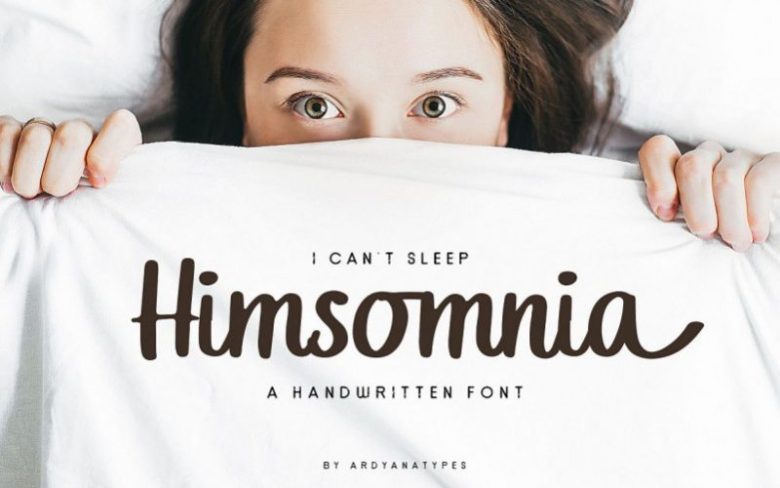
Himsomnia Handwritten Font
Introducing himsomnia is a simple and very casual font. Himsomnia also has many opentype features that you will like, these fonts are perfect for logos, quotes, clothing designs, wedding invitations, and more.
You can play with ligature, alternative styles, swash, etc. To make your own special letter.